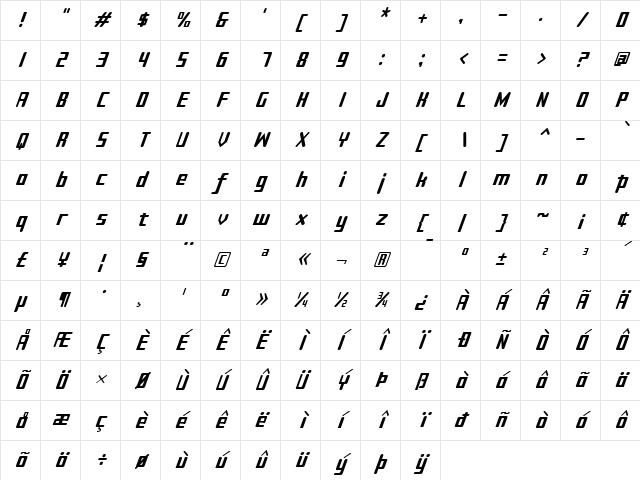
Sujeta Italic Free Font
Sujeta Italic
Sujeta Family
Design Context for Sujeta
Sujeta is a composed and adaptable typeface that performs quietly and consistently across a wide range of design contexts. The slanted form adds forward momentum and visual energy.
Pro Tip: Use Sujeta for emphasis, pull quotes, and subheadings where its slanted energy can add rhythm to the layout.